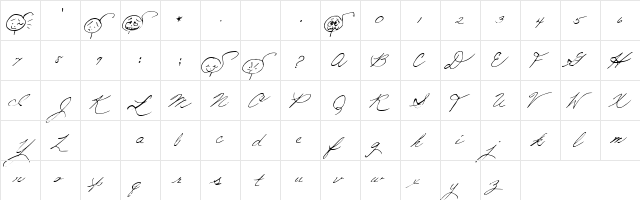
Judy Script
| Style | Script |
| Foundry | Font Garden |
| Designer | Ellinor Rapp |
Design Context for Judy Typeface
Judy flows with the natural rhythm of handwritten lettering, making it ideal for designs that call for warmth and personal expression.
Font Pairing: Combine Judy with a simple geometric sans for maximum contrast — the tension between flowing curves and clean structure is a classic typographic pairing.
Pro Tip: Use Judy for short runs of text — names, titles, or taglines. Extended body copy in script faces tires the eye quickly.